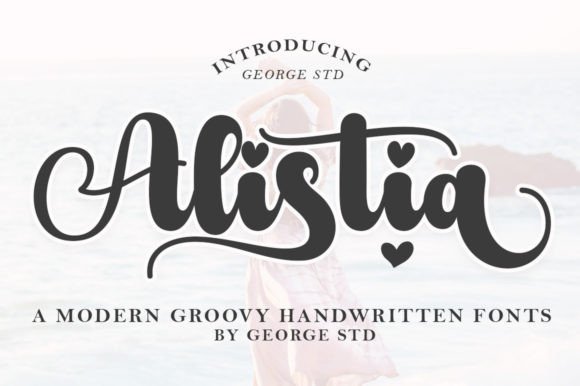
Introducing Alistia Font - a strikingly elegant script font that exudes boldness and charm. Crafted by the esteemed George Studio, Alistia stands out with its robust strokes and unpretentious curves, ensuring effortless readability while maintaining a captivating uniqueness.
Immerse yourself in the versatility of Alistia, a font that effortlessly adapts to a myriad of design endeavors, from formal CVs to whimsical invitations. Its confident presence enhances any project, leaving a lasting impression.
Elevate your CV with Alistia's distinct character, making it a true standout among the mundane. Its bold lines command attention, while its refined curves add an air of sophistication. Let Alistia's presence amplify your professional image, showcasing your skills and experience with unparalleled flair.
Beyond CVs, Alistia's versatility knows no bounds. Its captivating strokes dance across wedding invitations, adding a touch of timeless elegance to the momentous occasion. Embrace the magic of Alistia and craft invitations that reflect the beauty and joy of your special day.
Unleash your creativity with Alistia, a font that breathes life into logos, branding, and marketing materials. Its expressive nature lends itself to captivating designs that resonate with audiences, leaving an indelible mark on their minds. Ignite your brand's personality with Alistia's bold charm and watch your business flourish.